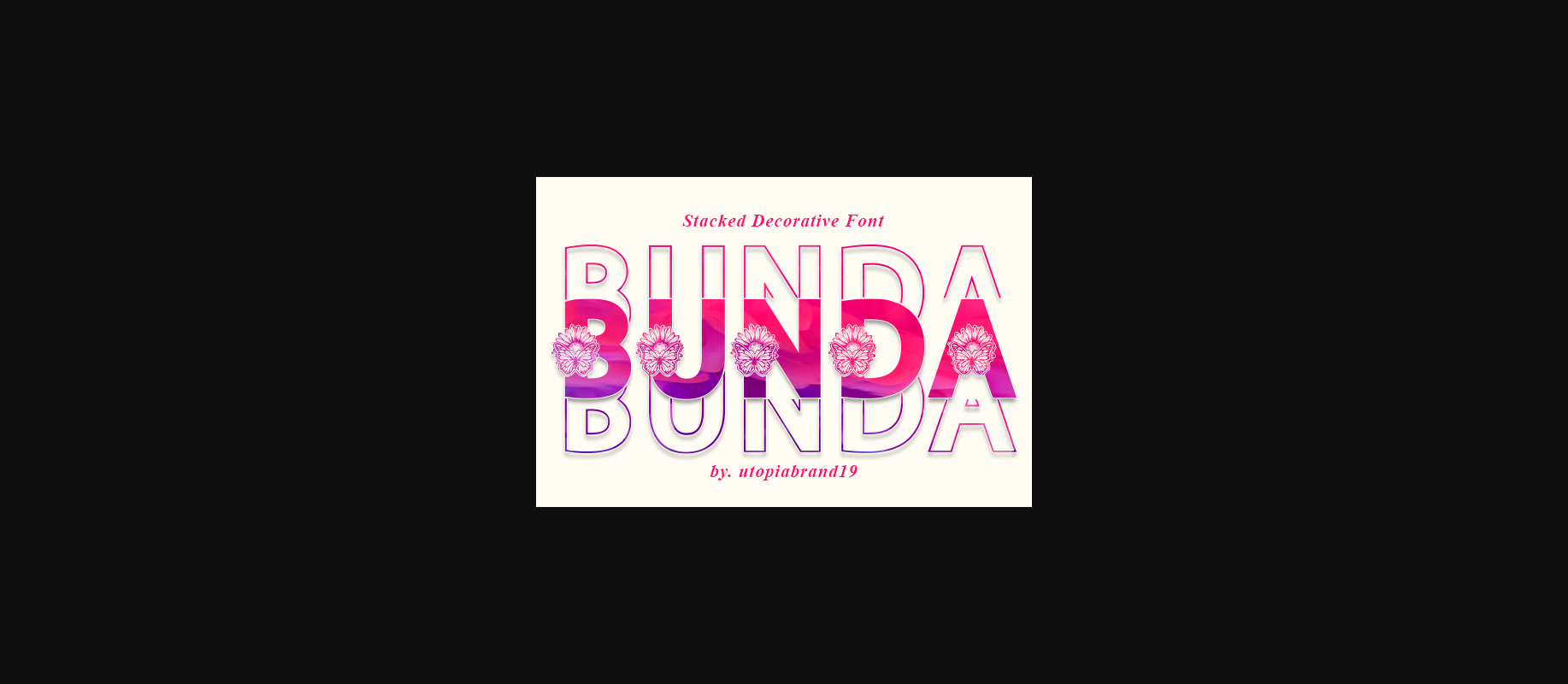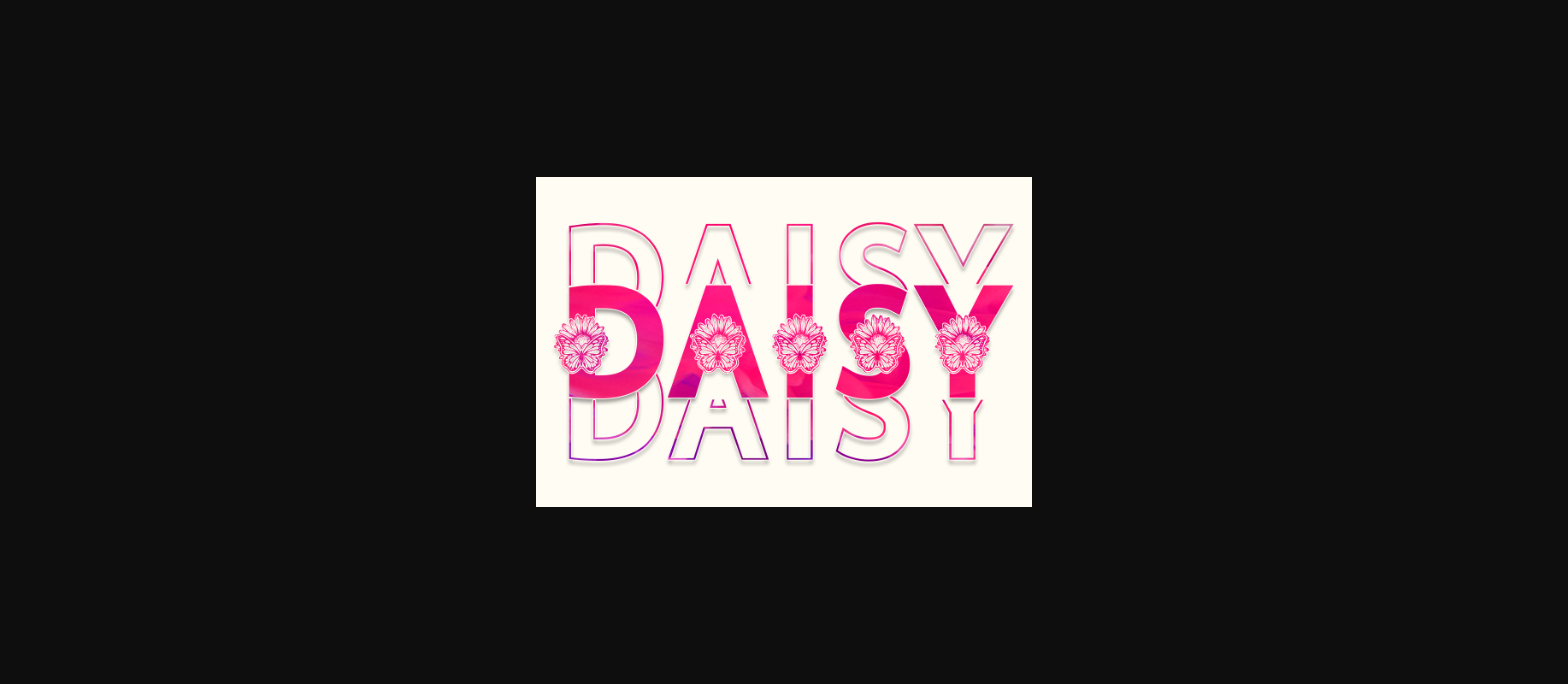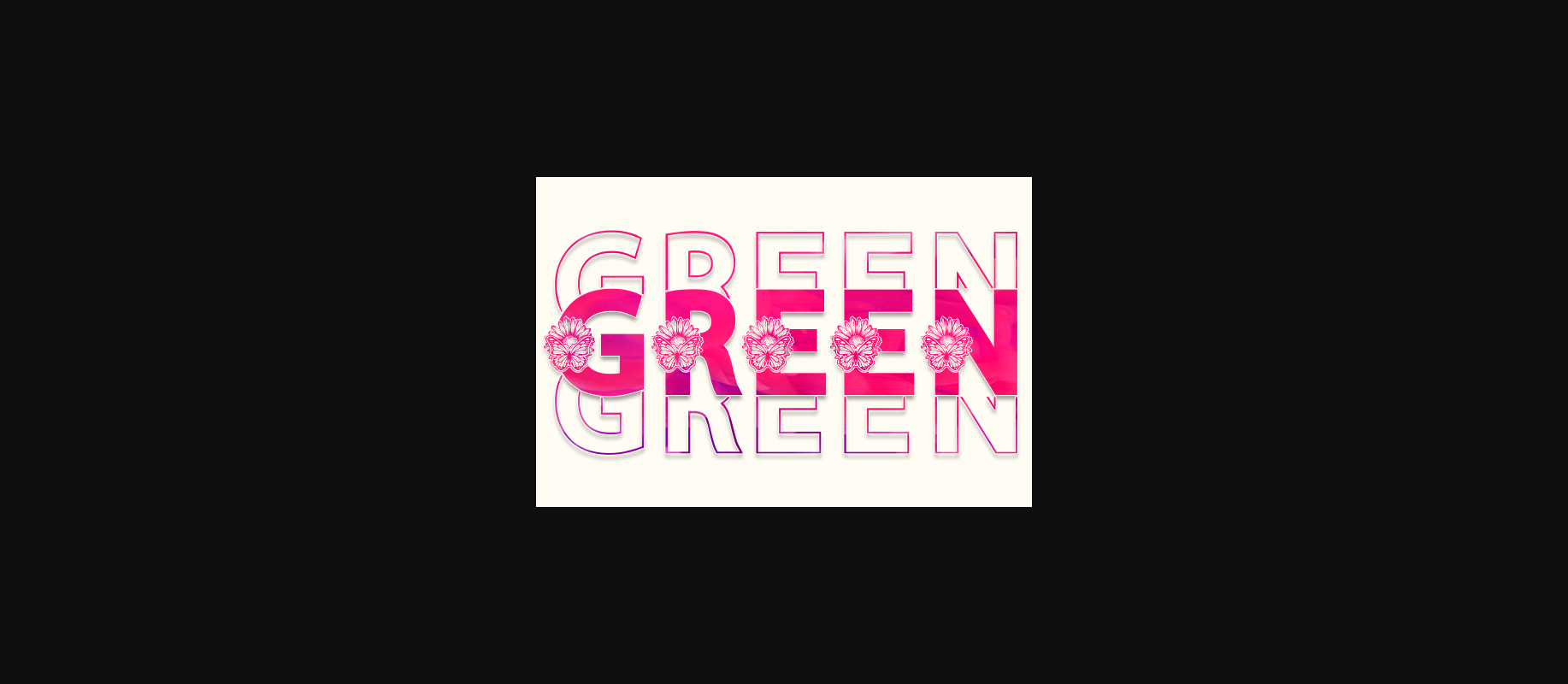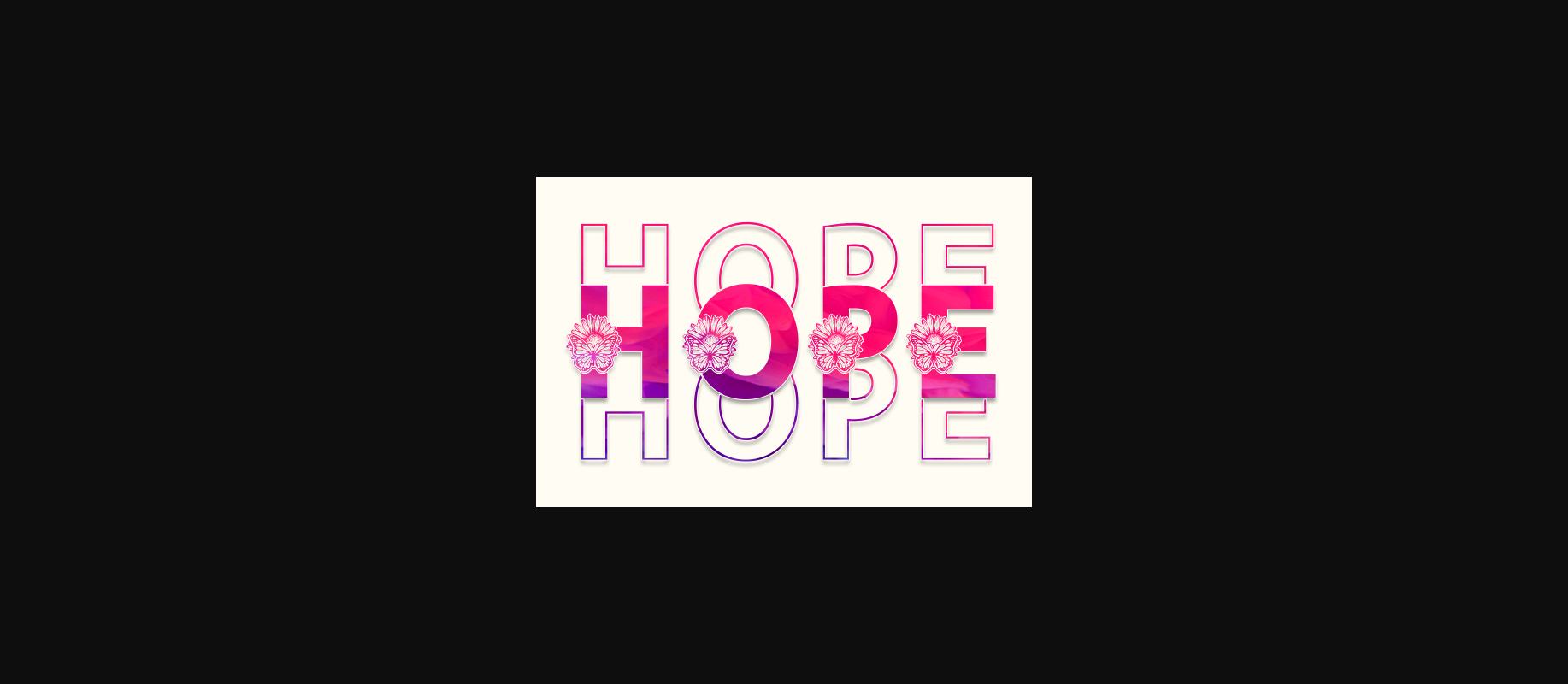
About Bunda Font
Bunda Stacked Decorative is display stacked font with nature style. This display font is perfect font for any crafting project, such as poster, t-shirt quote, mug, sticker, sublimation, display, and many more.